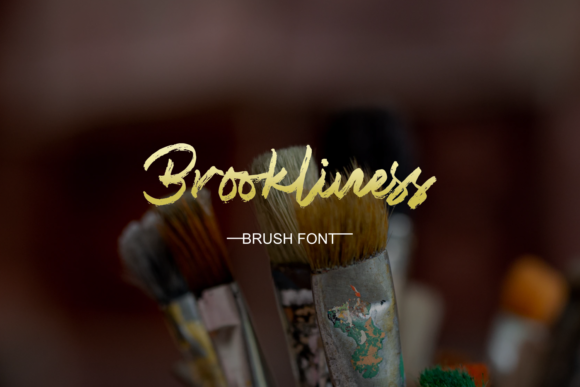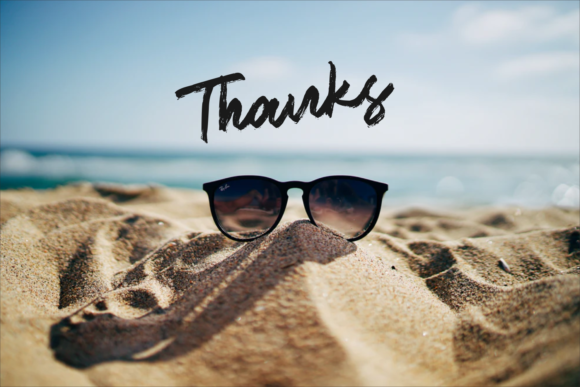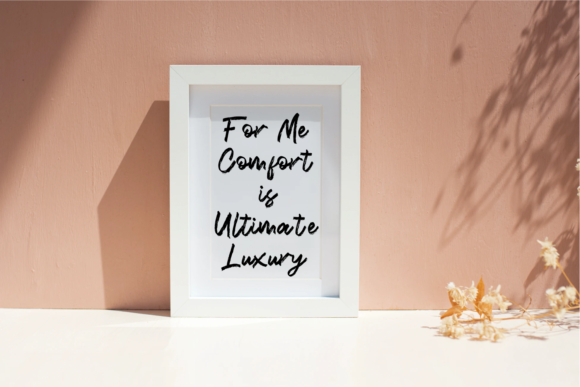
About Brookliness Font
Brookliness is a cool brushed handwritten font. It is the best choice for creating eye catching logos, branding and quotes. No matter the topic, this font will be an incredibly asset to your fonts’ library, as it has the potential to elevate any creation.